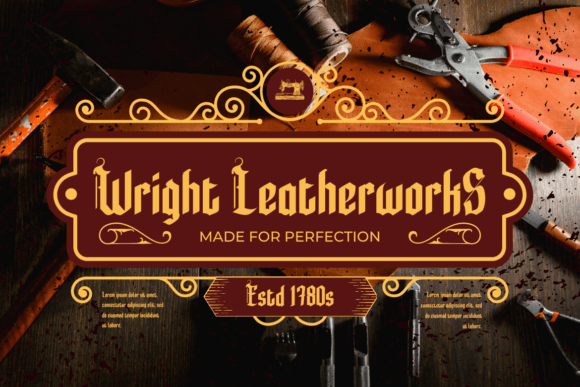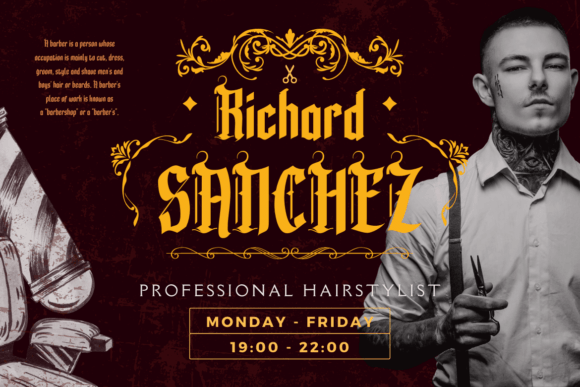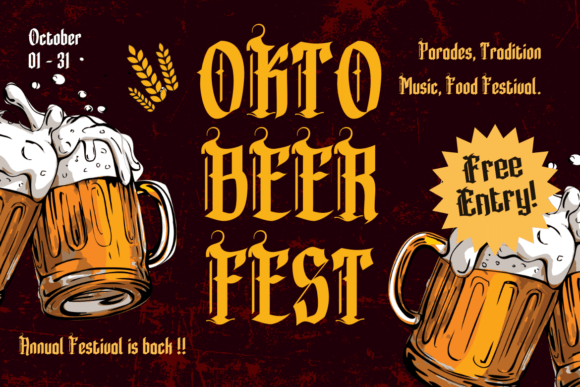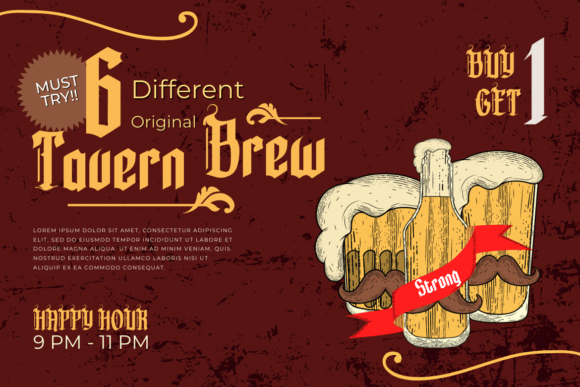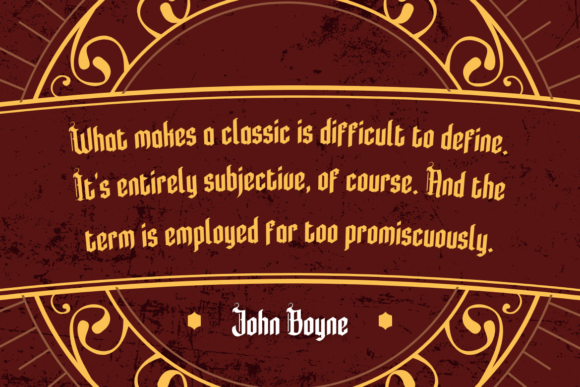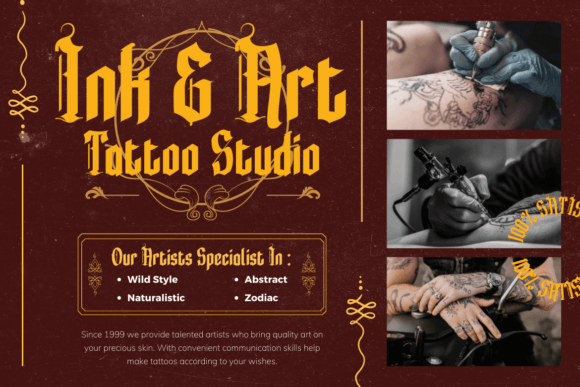
Introduction to Rengkox Font
Introducing our newest Rengkox Blackletter font.
This font can be used in a variety of projects to create a vintage and elegant style Use to elevate visual projects, titles, or banners, packaging with a bold, classic look that exudes style, elegance, and strong personality.
Key Features of Rengkox Font
Why Choose Rengkox Font?